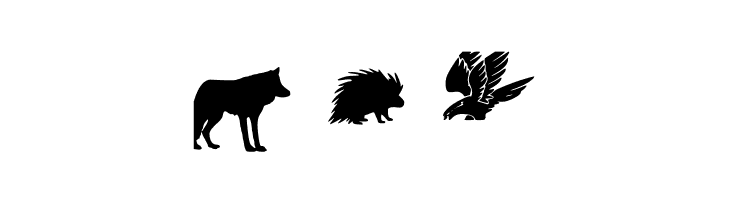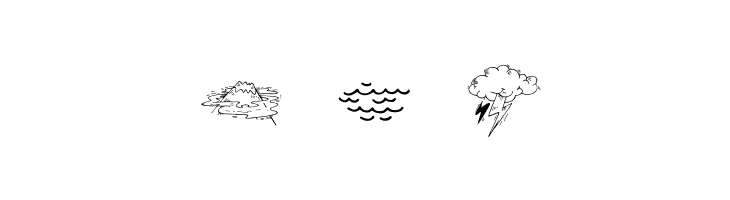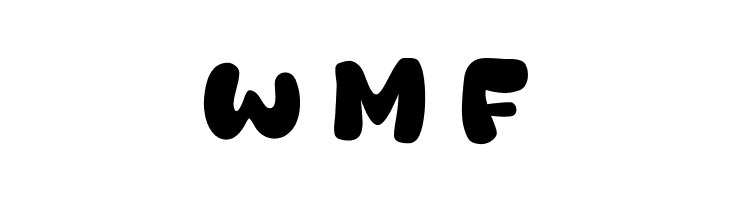
A decorative snowflake dingbat font with detailed, unique glyphs.
A bold, expressive handwritten font with dynamic strokes and a brush-like texture.
A playful and whimsical set of cartoon characters with bold outlines and quirky designs.
A playful brush-style font with bold, dynamic strokes and a hand-painted appearance.
A modern, geometric font with a futuristic and bold design.
Animal-themed silhouette dingbat font.
Cartoon character face dingbat font with bold, playful designs.
Hand-drawn weather icon dingbat font.
A playful, bold font with rounded, bubbly characters ideal for fun projects.
Hand-drawn dingbat font with garage sale item illustrations.